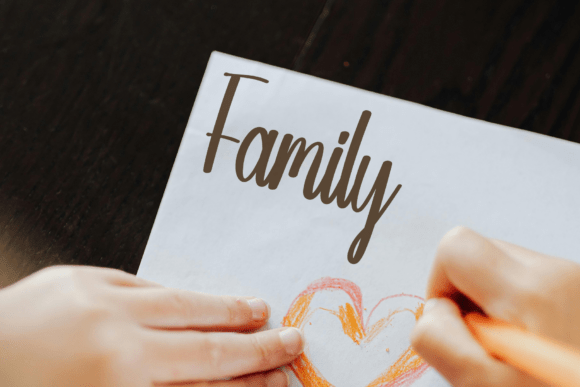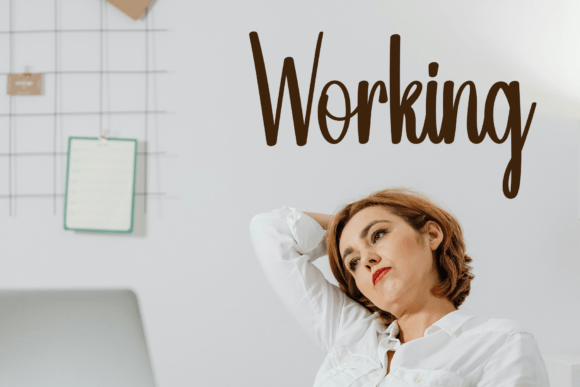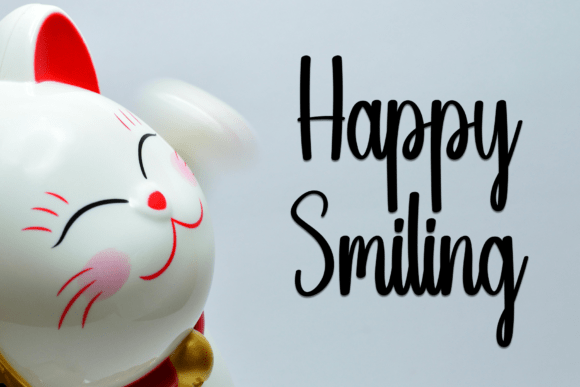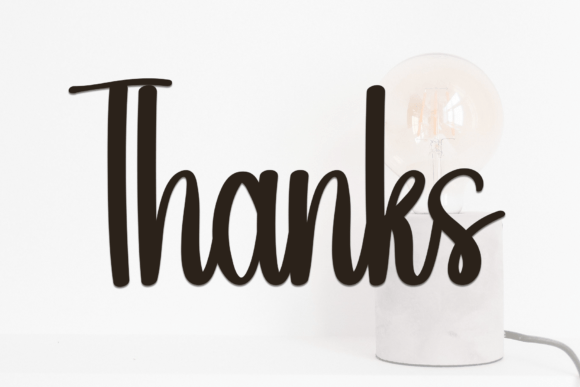
Introducing Afterward Font: Elevate Your Designs with Artistic Flair and Contemporary Elegance
In the world of typography, few fonts manage to strike a balance between artistic expression and modern sophistication. Afterward Font is one such exceptional typeface that seamlessly merges the fluidity of hand-painted calligraphy with a contemporary twist. This stylish script font is designed to infuse your designs with a creative and sophisticated touch, making it an ideal choice for a wide range of applications.
The Artistic Essence of Afterward Font
Afterward Font boasts fluid brush strokes, dynamic curves, and expressive letterforms that capture the essence of hand-painted calligraphy. Each character is meticulously crafted to convey a sense of movement and elegance, as if the words themselves were painted by a skilled artist. The font’s natural flow and vibrant character make it perfect for designs that require a touch of personality and flair.
One of the standout features of Afterward Font is its versatility. Whether you’re designing a logo, invitation, packaging, or social media graphics, this font adapts effortlessly to various design contexts. Its unique blend of artistic expression and modern elegance ensures that your designs stand out from the crowd, while its legibility and clarity make it suitable for both digital and print applications.
Ideal Applications for Afterward Font
Afterward Font is an excellent choice for a variety of design projects, including:
- Logos: Create a lasting impression with a logo that exudes sophistication and creativity.
- Invitations: Add a touch of elegance to your wedding invitations, event invites, or party flyers.
- Packaging: Elevate your brand’s packaging design with a font that conveys luxury and refinement.
- Social Media Graphics: Make your social media posts and stories stand out with a font that commands attention.
Why Choose Afterward Font?
With so many fonts available, why choose Afterward Font? Here are a few compelling reasons:
- Unique Artistic Expression: Afterward Font offers a distinctive style that sets it apart from more traditional fonts.
- High Versatility: Its adaptability makes it suitable for a wide range of design applications.
- Constantly Updated: The font is regularly updated to ensure it meets the evolving needs of designers.
Tips for Using Afterward Font Effectively
To get the most out of Afterward Font, consider the following tips:
- Pair it Wisely: Combine Afterward Font with complementary fonts to create visual hierarchy and contrast.
- Experiment with Colors: Take advantage of the font’s vibrant character by experimenting with different colors and gradients.
- Pay Attention to Spacing: Ensure that your text is easily readable by adjusting the spacing between letters and lines.
- Be Creative: Don’t be afraid to experiment with different design elements and techniques to make the font truly shine.
Afterward Font is a stylish script font that brings a unique blend of artistic flair and contemporary elegance to your designs. Its fluid brush strokes, dynamic curves, and expressive letterforms make it an excellent choice for designers and crafters looking to add a creative and sophisticated touch to their work. With its versatility, ease of use, and constant updates, Afterward Font is poised to become a staple in your typography arsenal.
Whether you’re a seasoned designer or a crafty DIY enthusiast, Afterward Font invites you to explore new creative horizons and elevate your designs to the next level. So why wait? Discover the artistic potential of Afterward Font today and transform your designs with its stylish, modern charm.